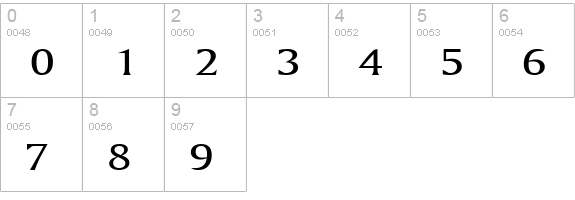
Ameretto Wide Normal is the standard, neutral, extended-width variant in the Ameretto typeface family \xE2\x80\x94 well suited to general body text, paragraphs, and standard typographic work.
Ameretto Wide Normal font is a versatile and modern typeface that exudes sophistication and elegance. With its clean lines and slightly condensed design, Ameretto Wide Normal is perfect for a wide range of projects, from branding to editorial design. This font strikes the perfect balance between professionalism and creativity, making it a top choice for designers looking to make a statement. What sets Ameretto Wide Normal apart is that it is available for free download at FontsMarket.com. This means that you can easily access this high-quality font without any cost, making it an excellent option for both personal and commercial projects. So why wait? Enhance your designs with the timeless appeal of Ameretto Wide Normal font today!